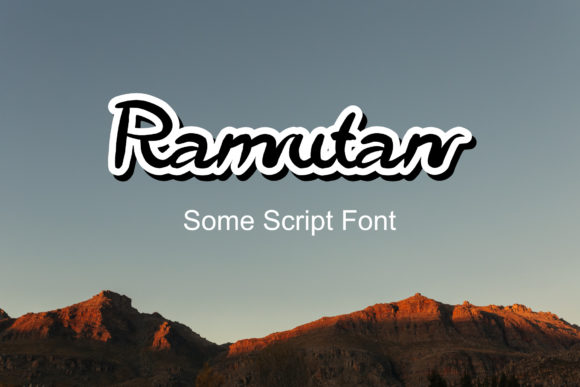
Ramutan Font
Journey into the realm of elegance and charm with Ramutan Font, a captivating script font crafted by 18CC FONTs. Unleash your creativity and elevate your designs with this graceful font, effortlessly adding a touch of sophistication and allure.
Express your individuality and make a statement with Ramutan's enchanting curves and flowing lines. Its versatility knows no bounds, making it the perfect choice for a multitude of projects, from eye-catching logos and branding to captivating invitations and social media posts.
Step into a world of endless possibilities as Ramutan transforms your words into works of art. Its enchanting nature breathes life into your designs, enchanting viewers with its timeless beauty. Whether you're a seasoned designer or just starting, Ramutan will captivate your audience, leaving them spellbound by its charm.
Dive into the depths of creativity with Ramutan, a font that speaks to the heart. Its delicate strokes and intricate details evoke emotions and create a lasting impression. Experience the joy of crafting designs that resonate with your audience, leaving them mesmerized by your creative flair.
Indulge in the artistry of Ramutan and watch as your designs blossom into masterpieces. Its captivating presence will draw eyes and capture hearts, leaving a lasting impact that will leave your audience yearning for more. Embrace the power of beauty and creativity with Ramutan, the font that sets your designs apart and makes them shine.